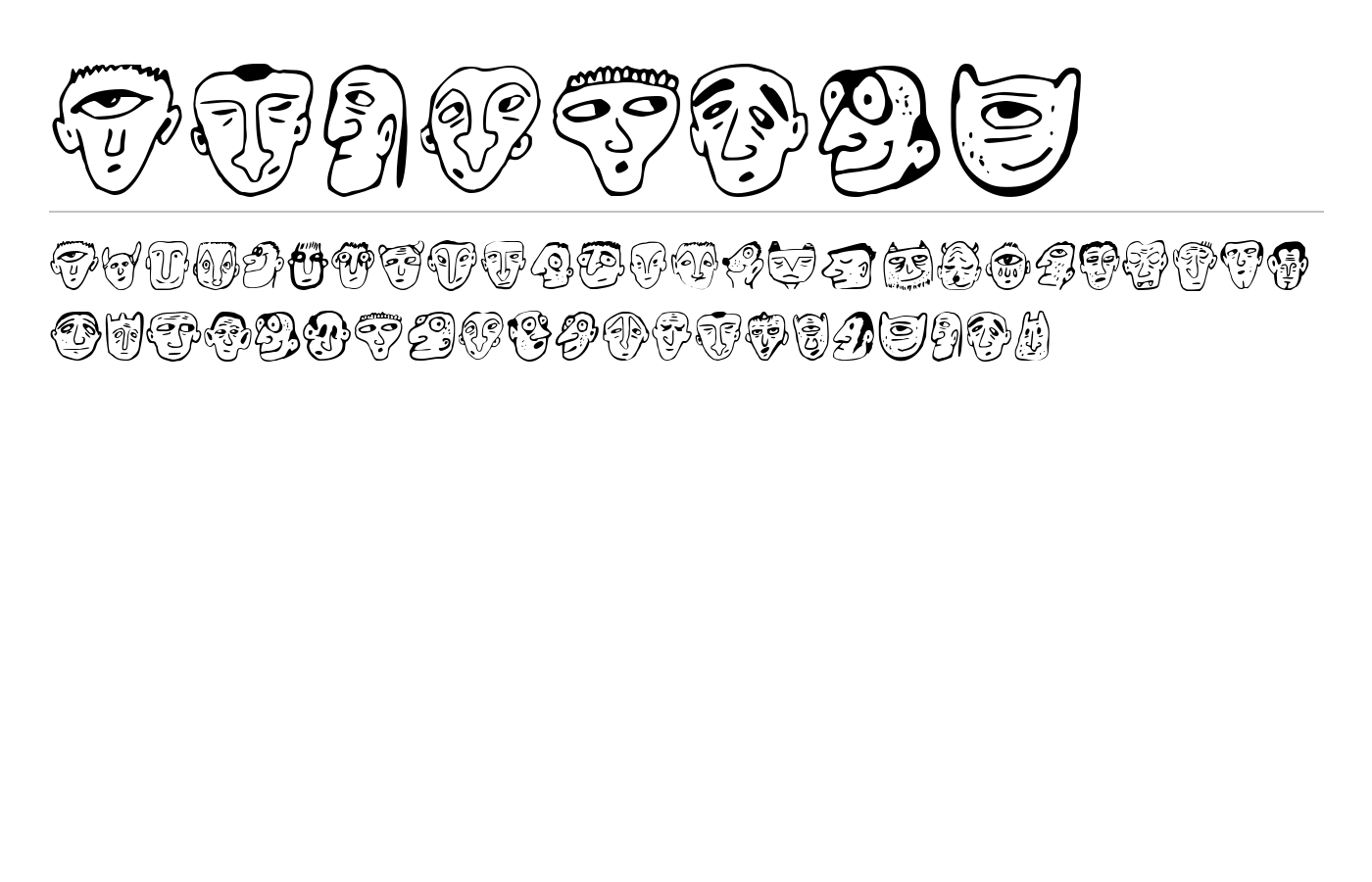
Ansigter Font is a playful and whimsical collection of hand-drawn expressive faces that convey character and charm through irregular, sketch-like lines. Its informal, artistic style makes it perfect for creative projects, illustrations, or branding that seeks a fun, quirky, and personal touch. This font works best in visual storytelling, posters, and unique brand identities where individuality and a sense of humor are key.
Ansigter Font
About Ansigter Font
| Font family | Ansigter Font |